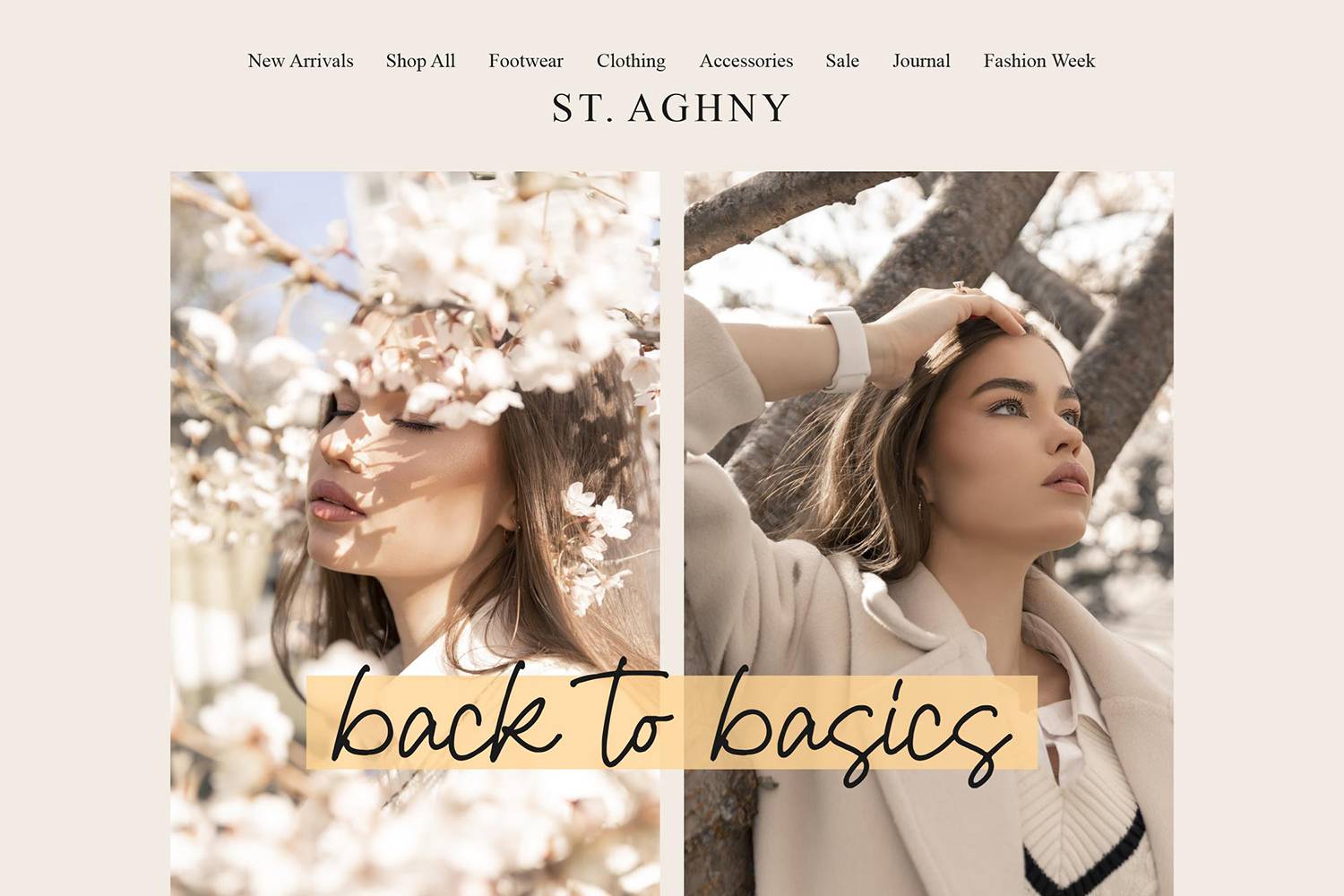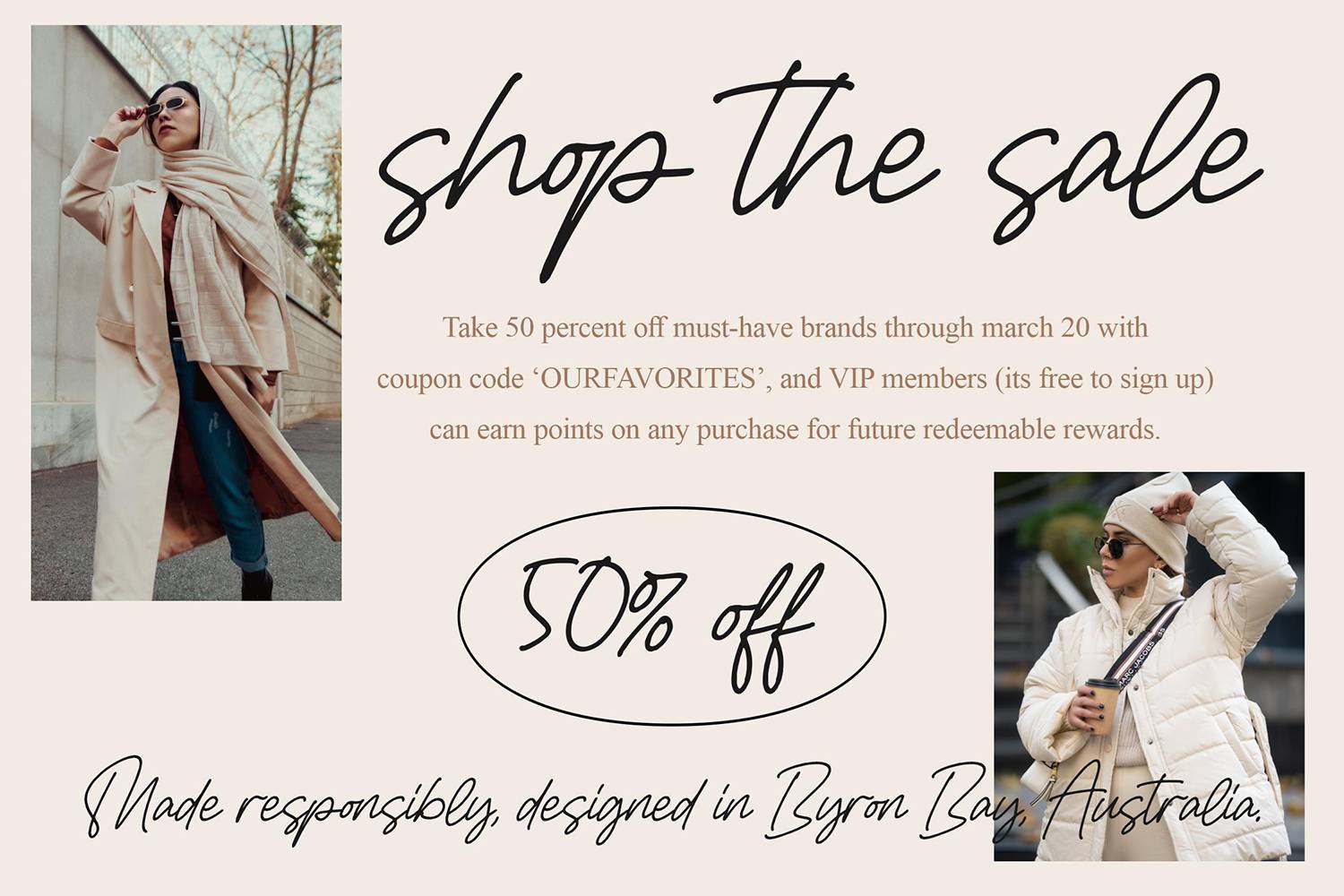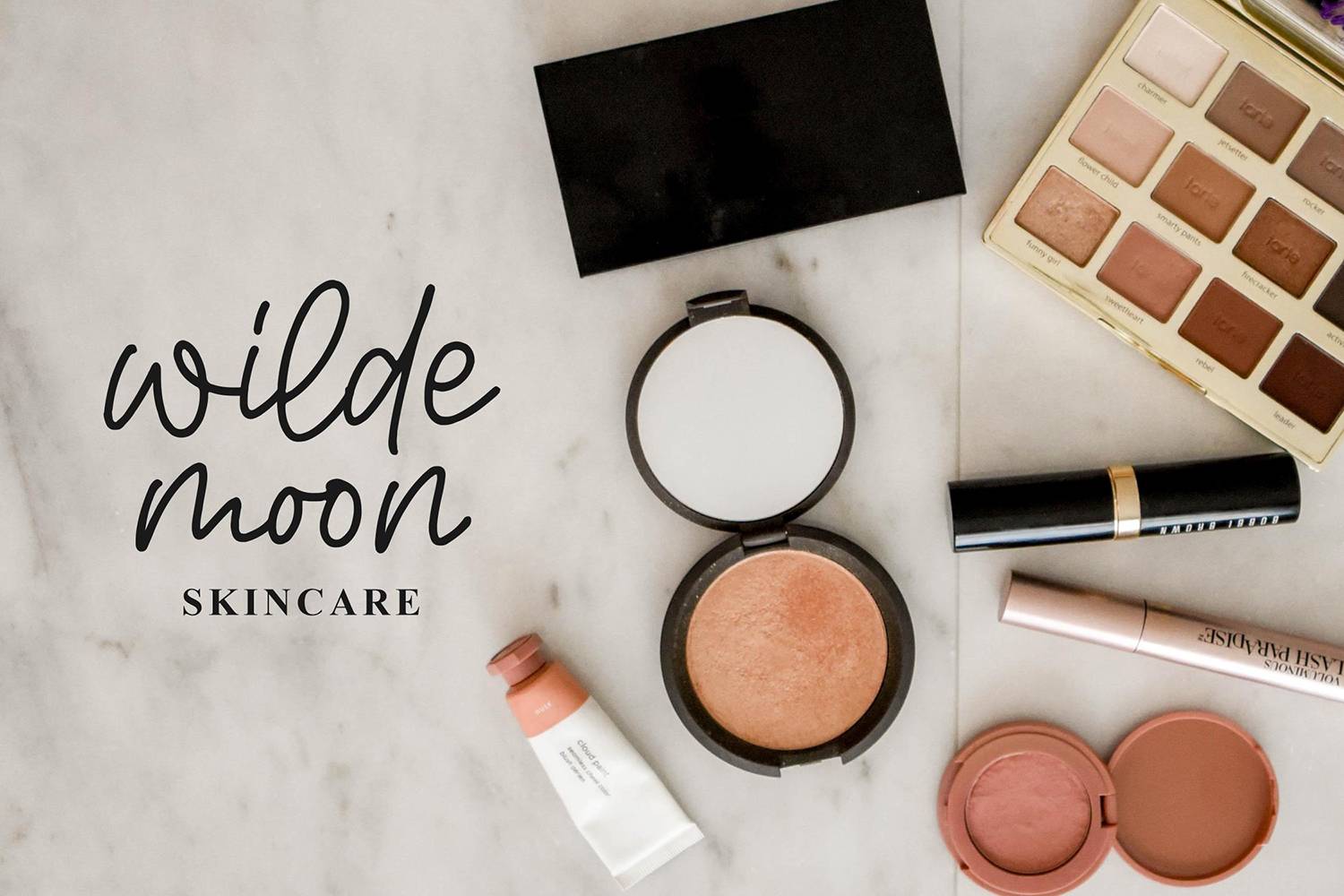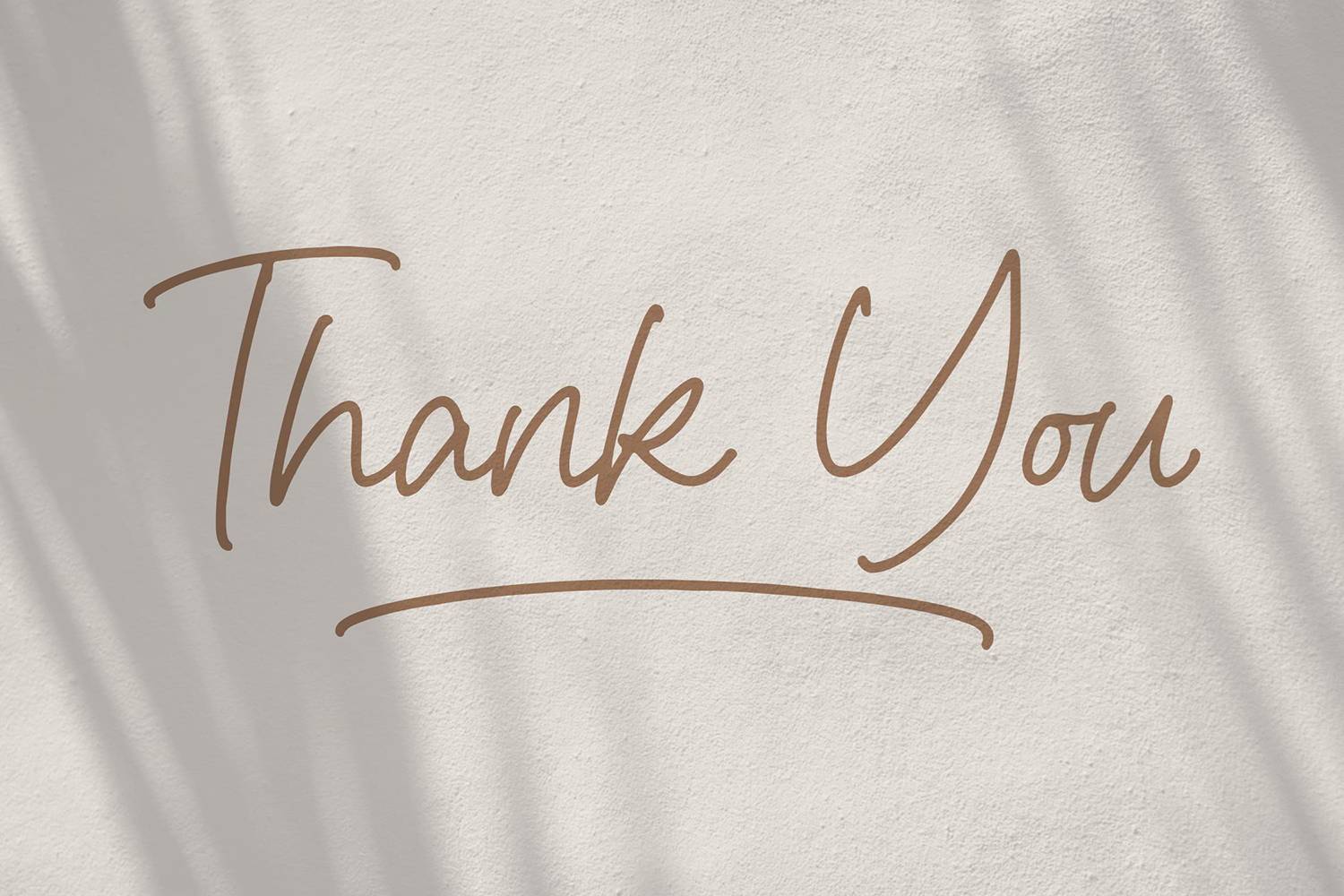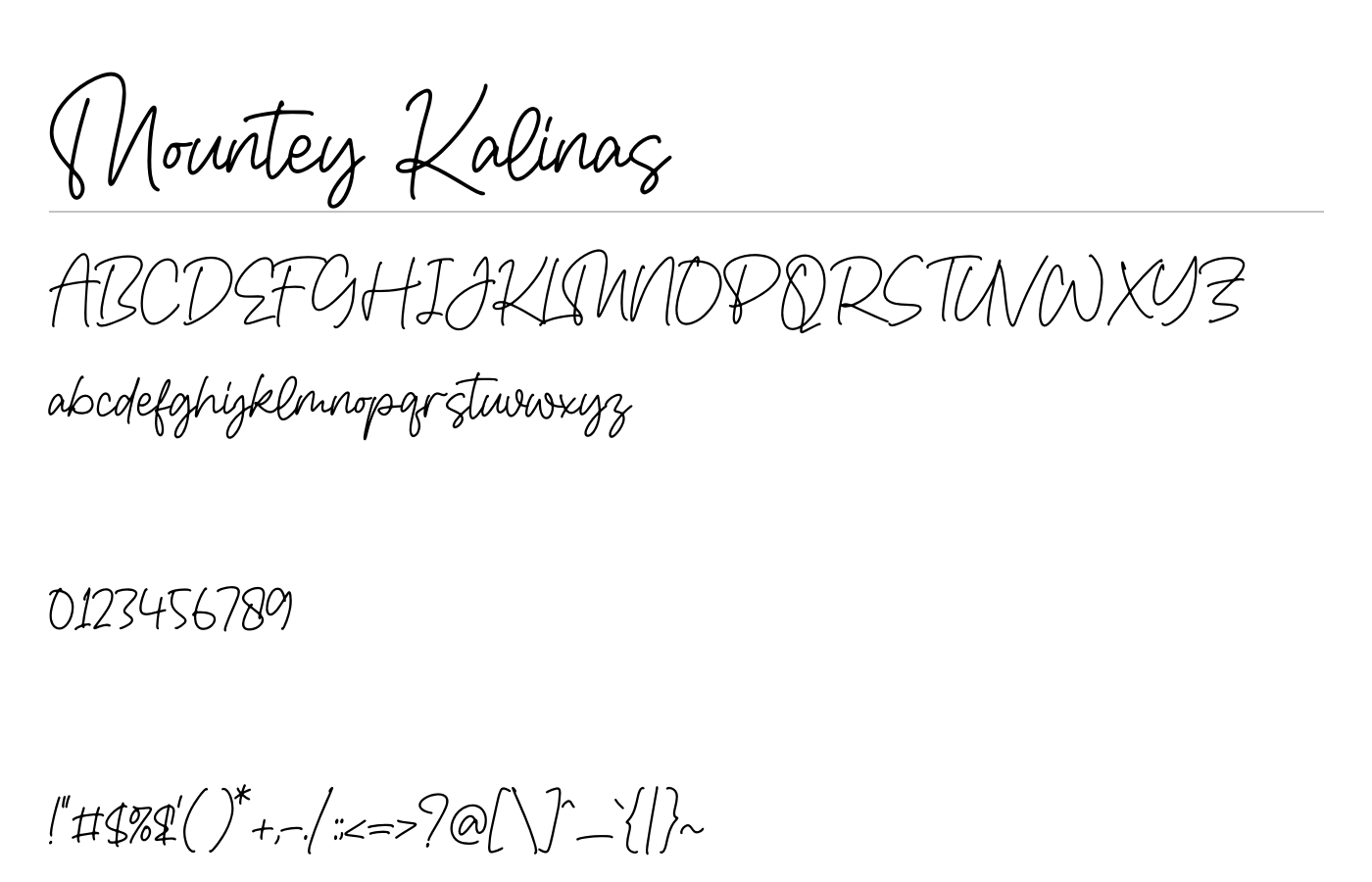
Mountey Kalinas is a delicate, handwritten script font characterized by its slender, flowing strokes and natural, casual style. Its airy letterforms and moderate height create an elegant yet approachable feel, making it perfect for personal branding, invitations, and creative projects that seek a touch of sophisticated charm with a modern, relaxed vibe.
Mountey Kalinas Font
About Mountey Kalinas Font